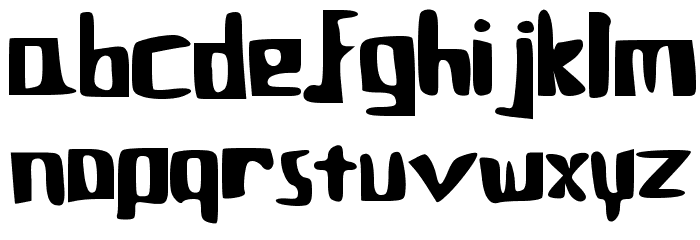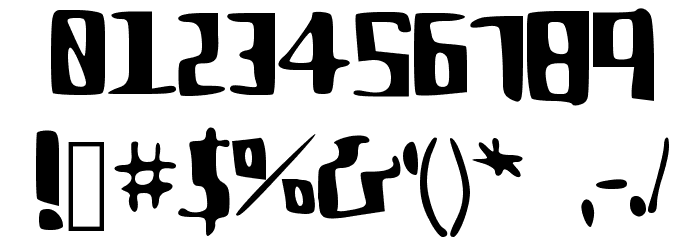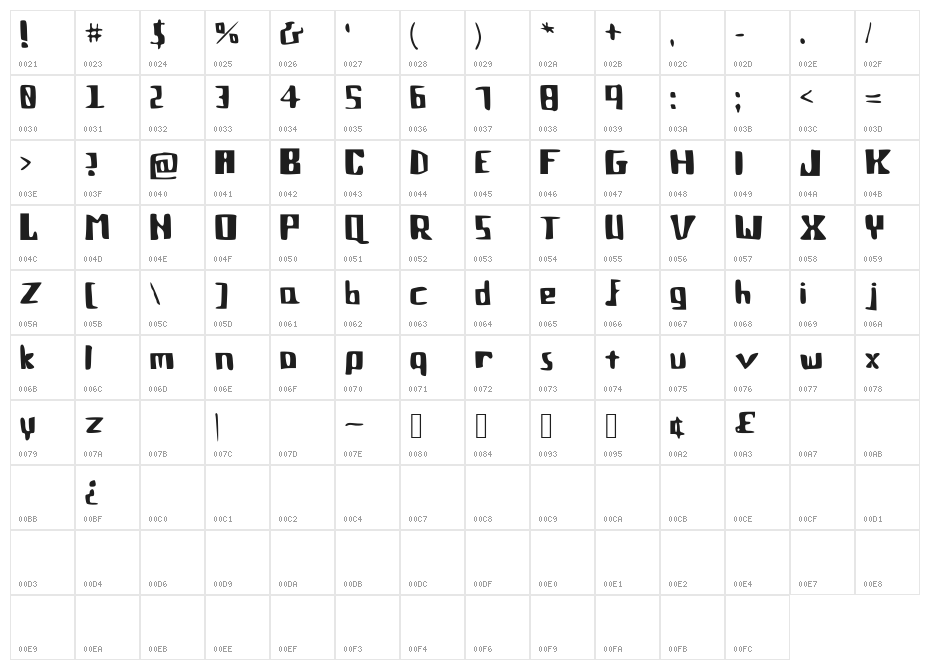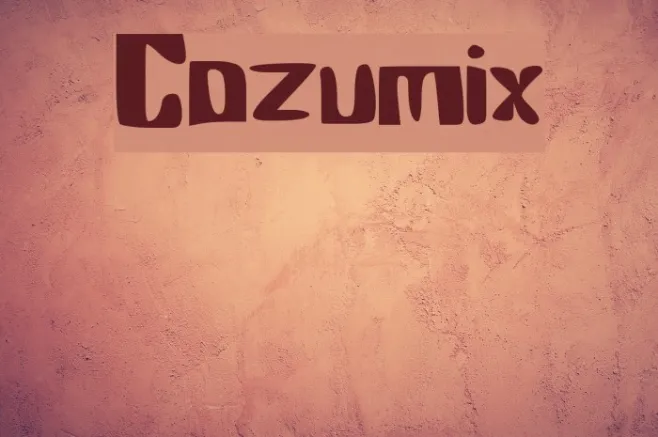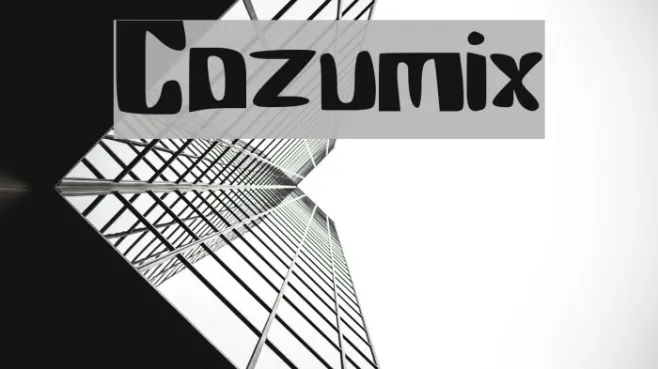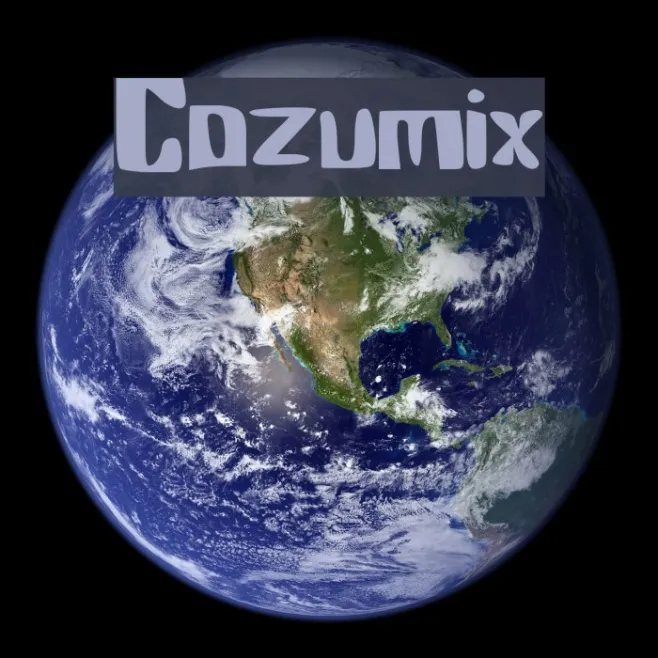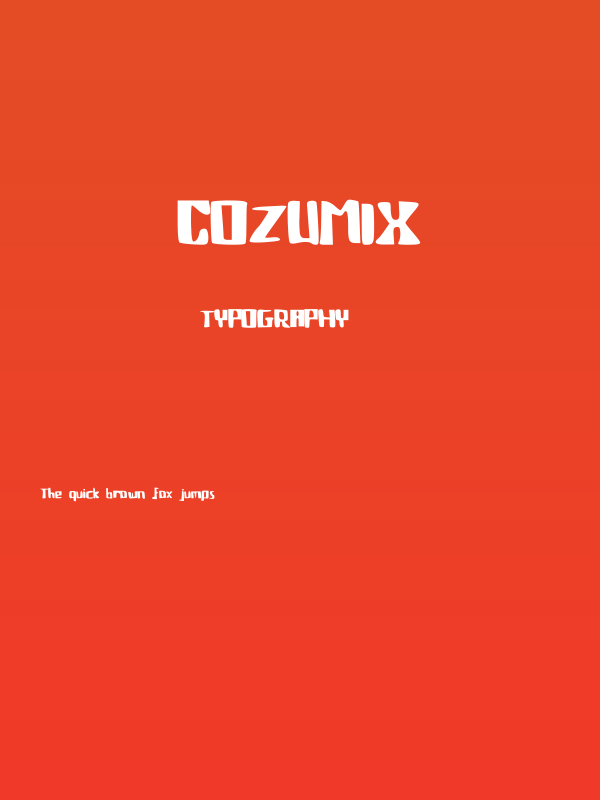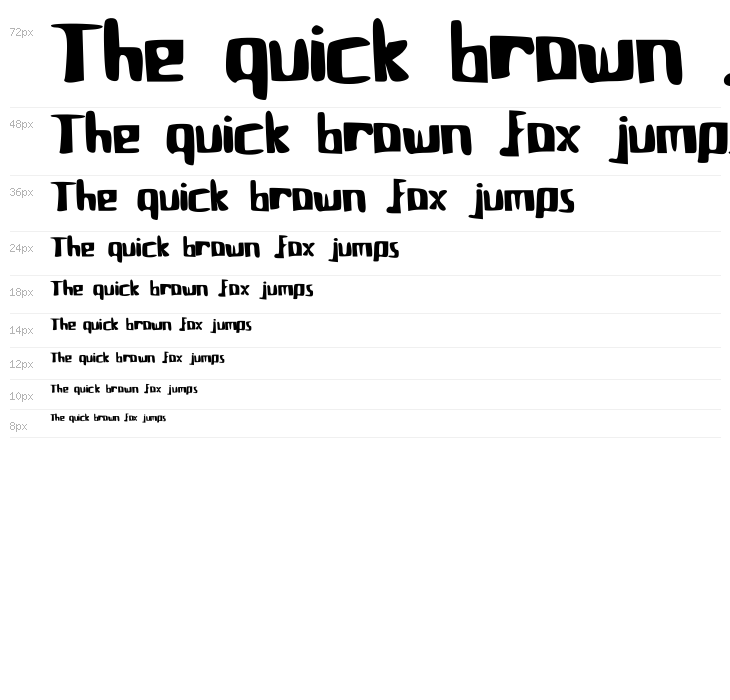
Cozumix Font
This font features a bold and playful design, characterized by its thick, uneven strokes and quirky, irregular shapes. The letters have a hand-drawn feel, with a mix of straight and curved lines that create a dynamic and energetic appearance. The uppercase and lowercase letters maintain a consistent style, while the numbers and special characters add to the font's whimsical nature. The overall look is both modern and artistic, making it suitable for creative projects that require a unique and eye-catching typeface.
A bold, playful font with thick, uneven strokes and a hand-drawn feel.
- Proposed Projects: Ideal for children's books, posters, creative branding, and playful graphic designs.
- Overall Style: Modern, Artistic